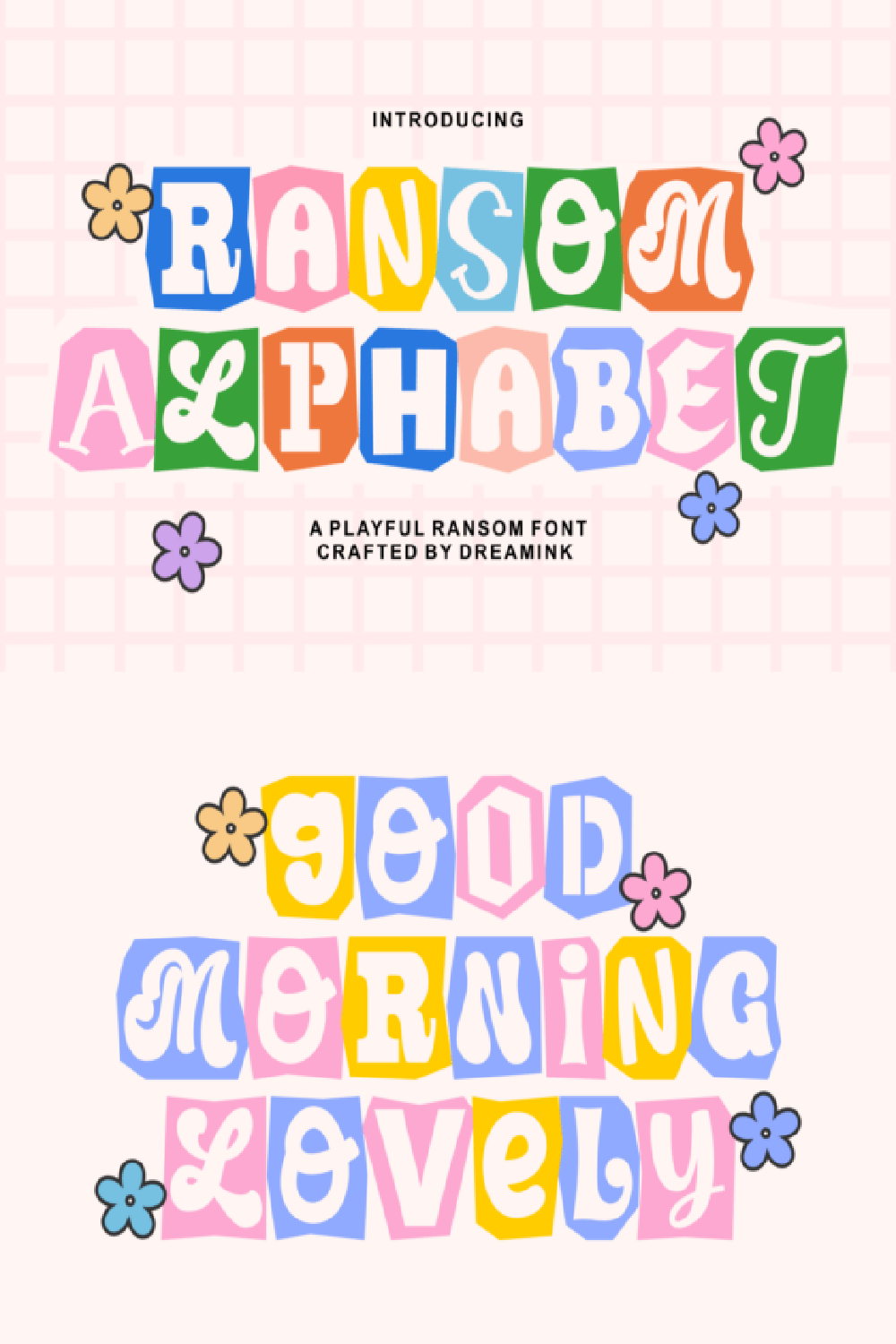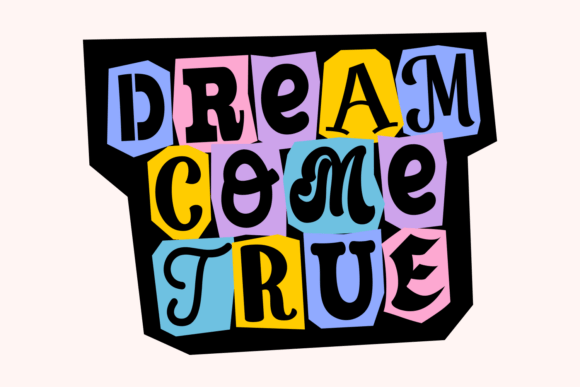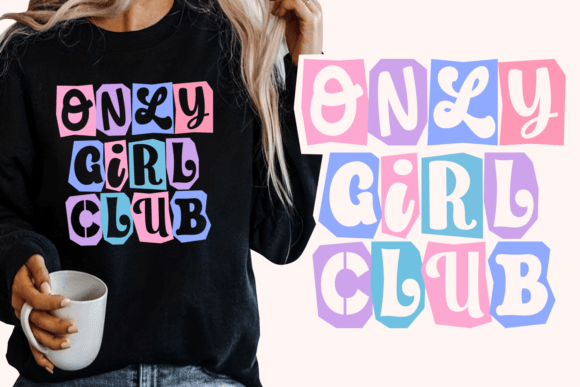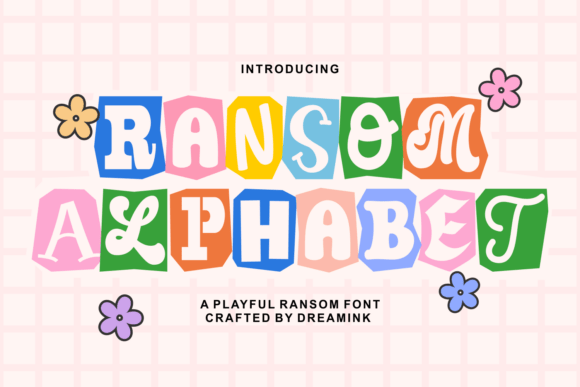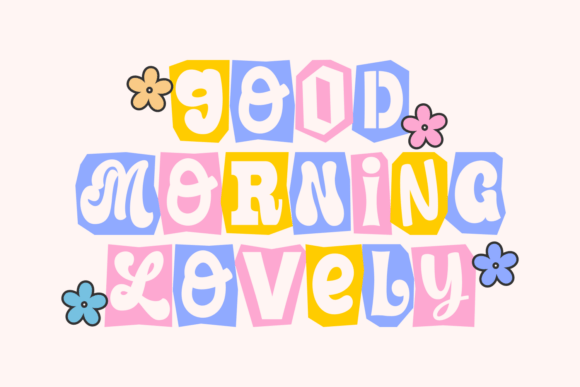
Ransom Alphabet Font
About the Ransom Alphabet Font
Add a touch of class to your work with the Ransom Alphabet Font, a truly exceptional typeface. Step into a vintage era with Ransom Alphabet; a unique display font that encapsulates the nostalgic, retro charm of ransom-style newspaper clippings. This darling of a typeface, with its cute and distinctive style, will elevate your projects, lending an old-school appeal that’s hard to resist. Benefitting from influences soaked in historical newspaper design, and paying homage to ransom notes, Ransom Alphabet does more than just impress. It tells a story, paints a picture and breathes life into your work. Expect smiles, double takes and captivated audiences when you choose to utilize this iconic fusion of retro and cute.